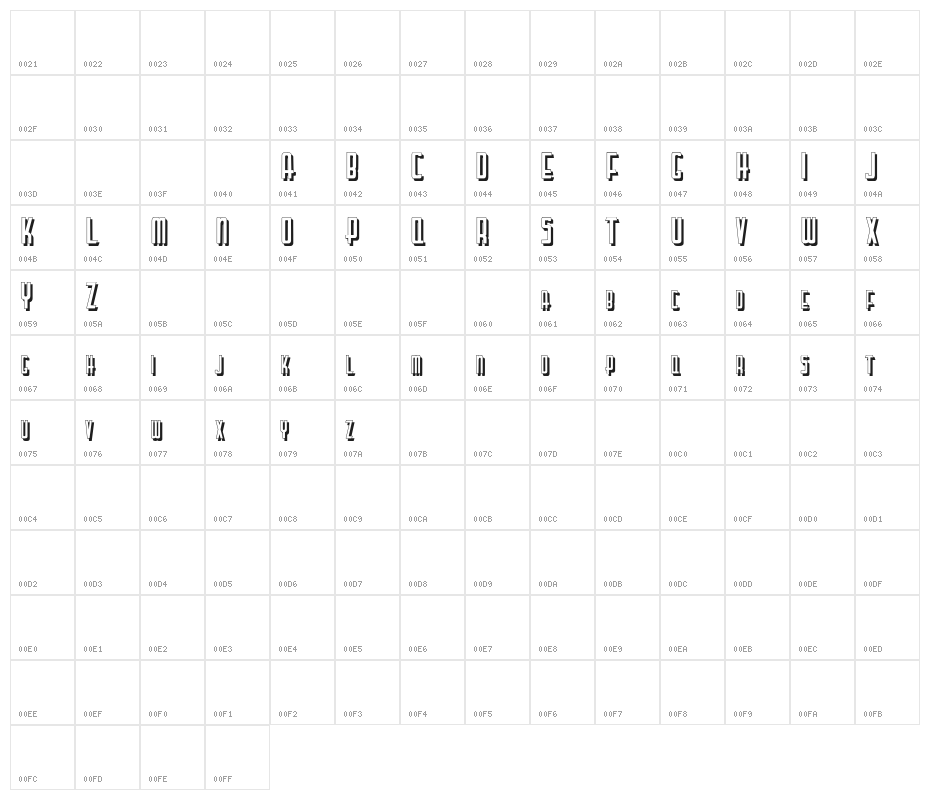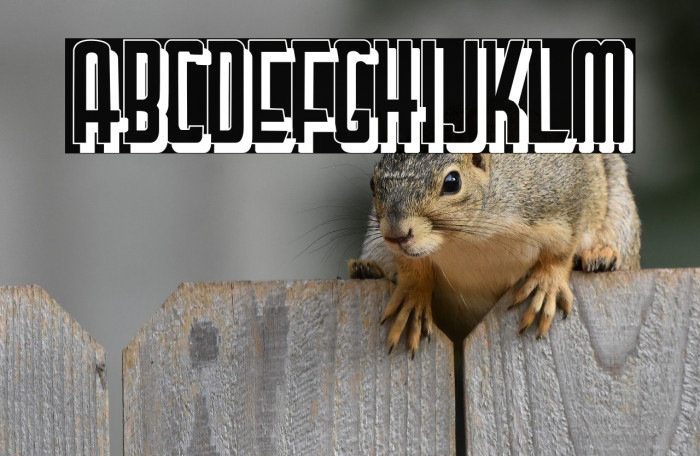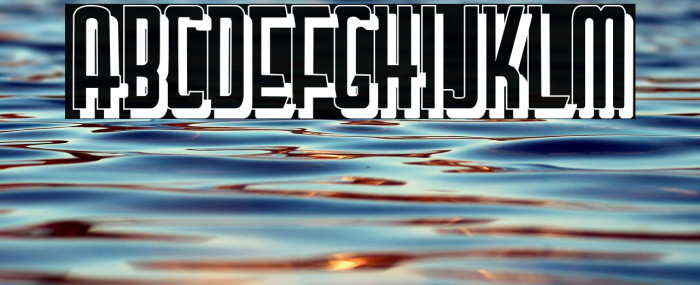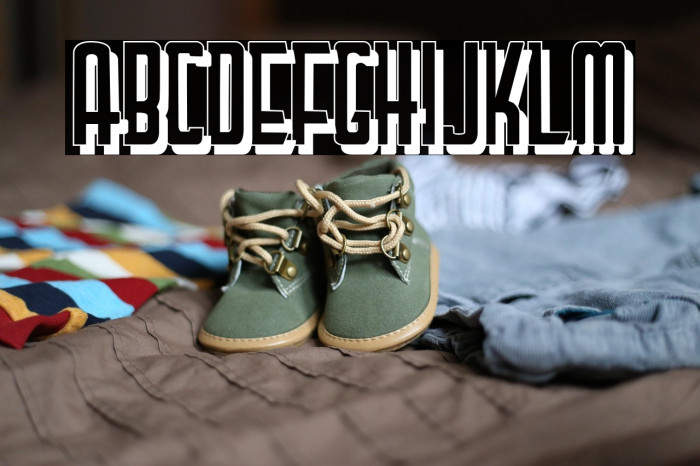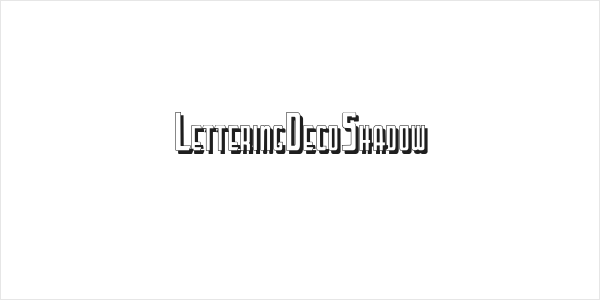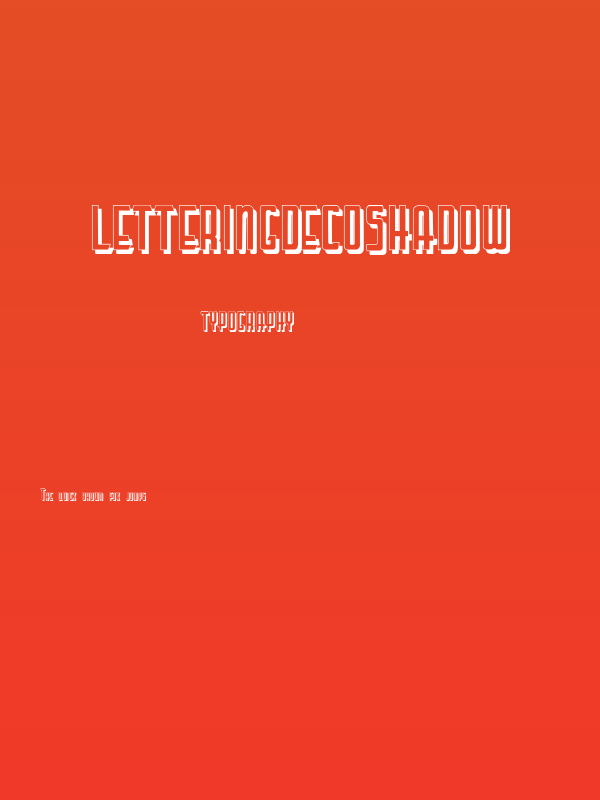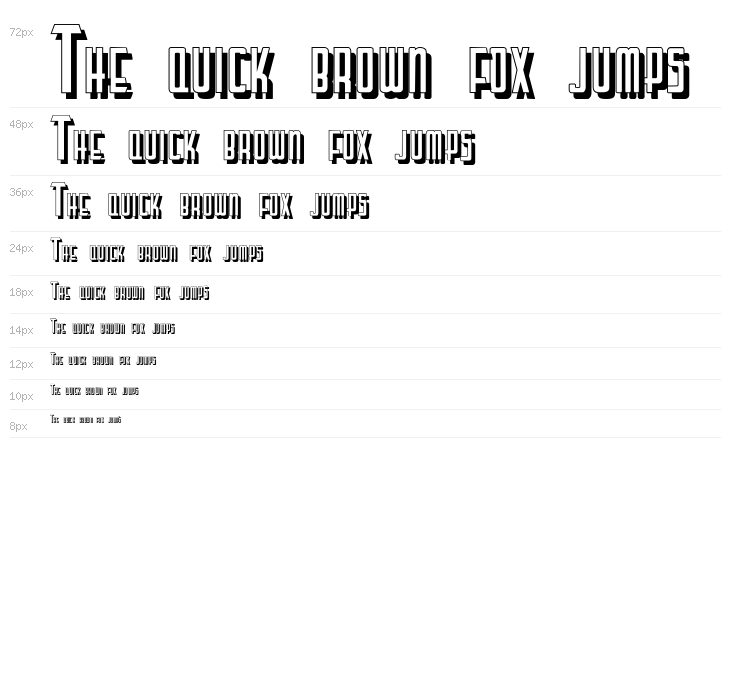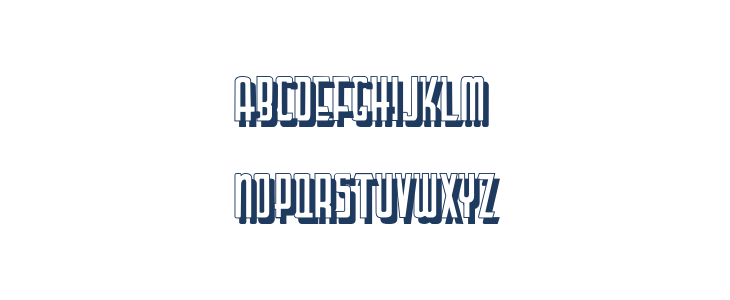
LetteringDecoShadow Font
This font features a bold, decorative style with a distinct shadow effect that gives it a three-dimensional appearance. The uppercase letters are tall and narrow, with sharp angles and clean lines that create a striking visual impact. The shadowing adds depth and a sense of movement, making it ideal for attention-grabbing designs. The lowercase letters maintain the same boldness and angularity, ensuring consistency across text. The numerals and special characters are designed to match the overall aesthetic, providing a cohesive look. This font is perfect for projects that require a strong, dynamic presence.
Proposed ProjectsIdeal for posters, headlines, logos, and any design needing a bold, eye-catching typeface.